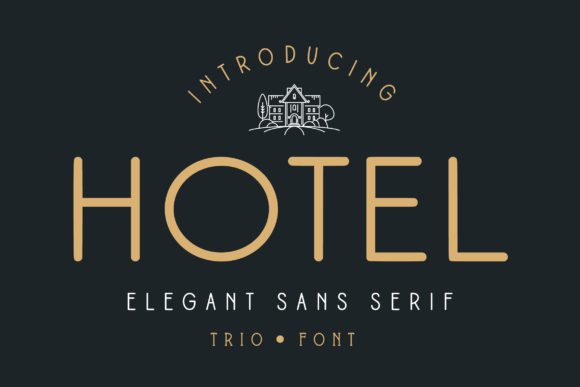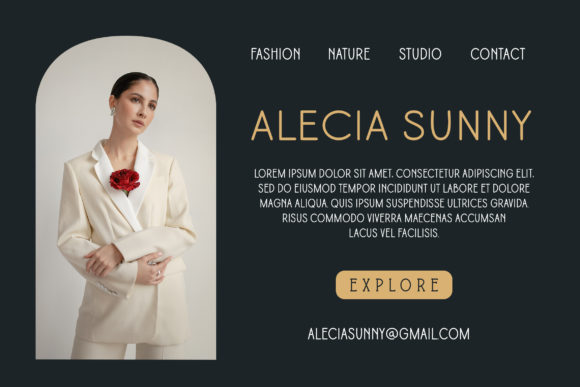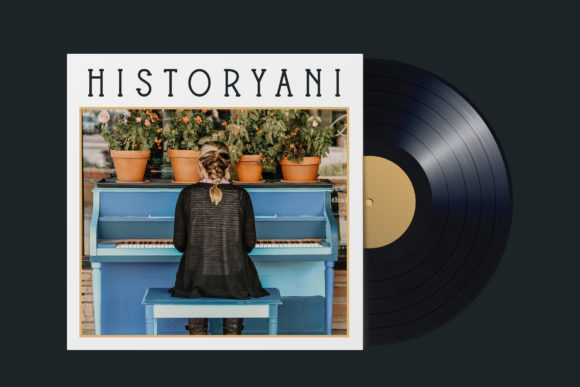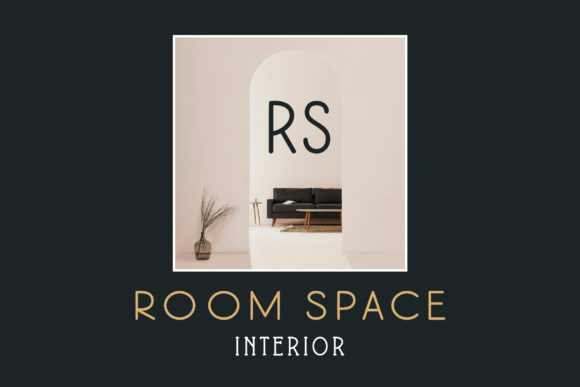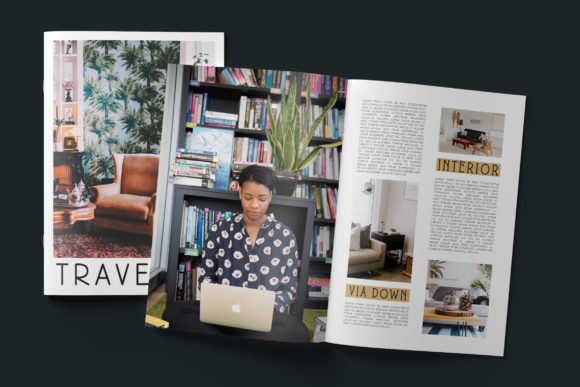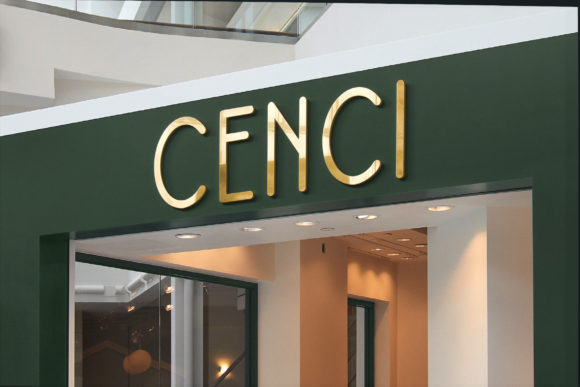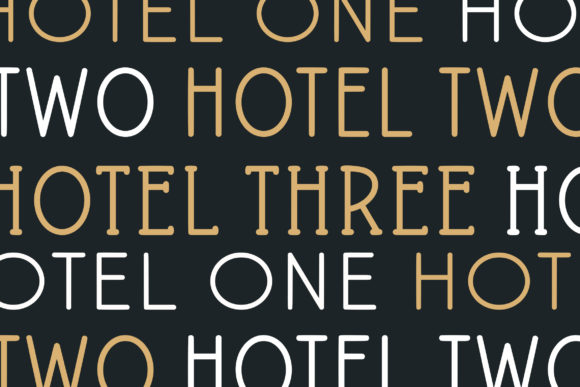
Discover the Perfect Check-In: Hotel Font
Imagine you’re brainstorming a new branding project, and you’ve got a vision of sleek, modern lines and classic elegance. You start sketching out ideas, but something’s missing – a font that perfectly captures the essence of your concept. That’s where Hotel Font comes in – a beautiful, versatile duo font that effortlessly adapts to any project.
Hotel Font is a harmonious blend of serif and sans serif styles, making it the perfect choice for designers looking to create a cohesive and stylish visual identity. Whether you’re working on a luxury travel brochure, a high-end restaurant menu, or a sleek corporate website, Hotel Font is the perfect check-in for your design needs.
With Hotel Font, you’ll unlock a world of creative possibilities and take your designs to the next level. Its versatility and timeless elegance make it an invaluable addition to any designer’s toolkit.
Key Features of Hotel Font
- Font Family: Hotel Font is a sans-serif font family that includes 6 styles: Thin, Light, Regular, Medium, Bold, and Black.
- Unique Characteristics: Hotel Font features a distinctive, modern design with clean lines and geometric shapes, making it suitable for various applications, including hospitality, travel, and lifestyle branding.
Hotel Font Review
Overall, I think Hotel Font has some nice qualities, but it’s not perfect. Let’s start with what works well:
- ✨ It has a very distinct and stylish feel to it, perfect for creating a luxurious or high-end brand aesthetic.
- ✨ The font is highly legible, even at small sizes, making it a great choice for body text or signage.
- ✨ The font is quite versatile and can work well in a variety of contexts, from formal to informal.
Now, let’s talk about some of the limitations:
- ⚠️ The font is not very readable in certain languages, particularly those with complex scripts or non-Latin characters.
- ⚠️ The font can look a bit too ornate or over-the-top in certain contexts, which may not be suitable for all brands.
- ⚠️ The font is not as extensive as some other font families, with a relatively limited character set.
Overall, I think Hotel Font is a great choice for certain brands or projects, but it may not be the best fit for everyone. With its stylish feel and high legibility, it’s definitely worth considering for high-end or luxury brands, but be aware of its limitations and potential drawbacks.
Hotel Font Practical Application Guide
Hotel Font is a versatile font that can be used in a variety of contexts, including:
- Restaurant and hotel branding
- Wed